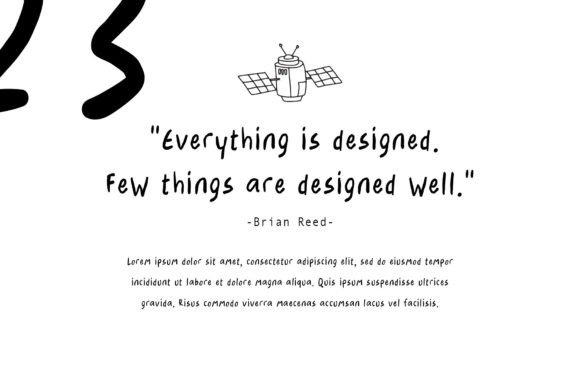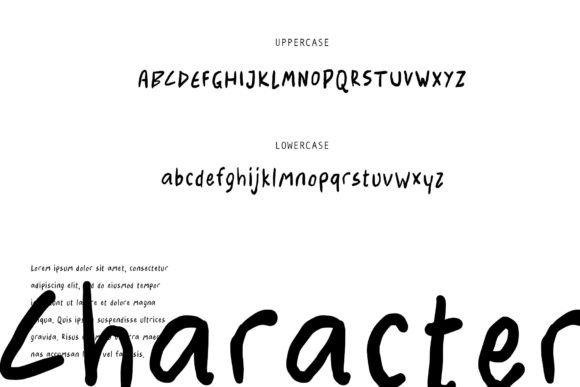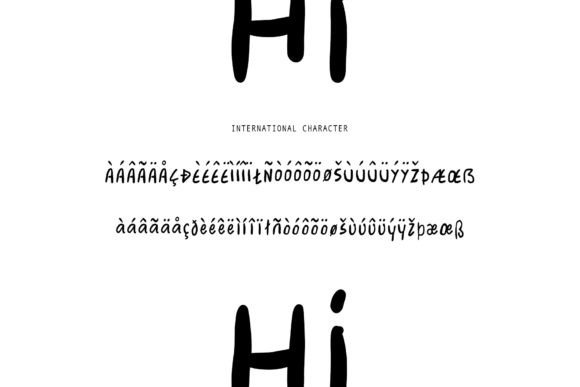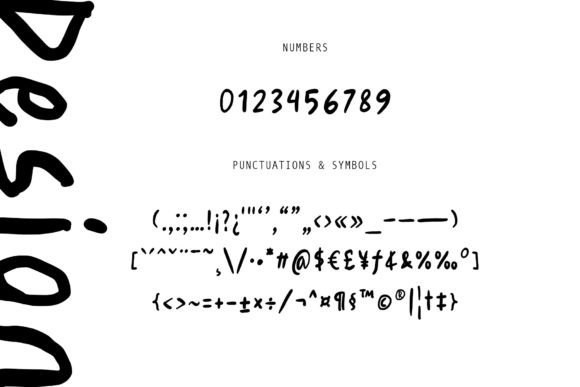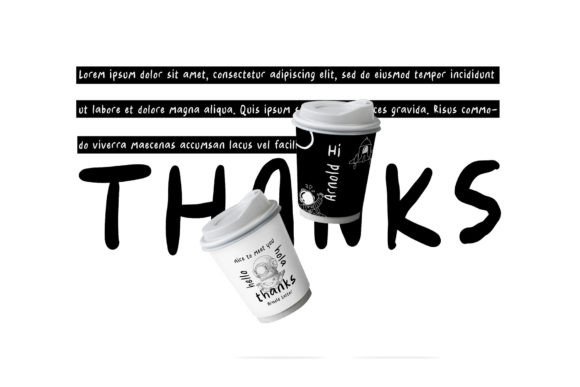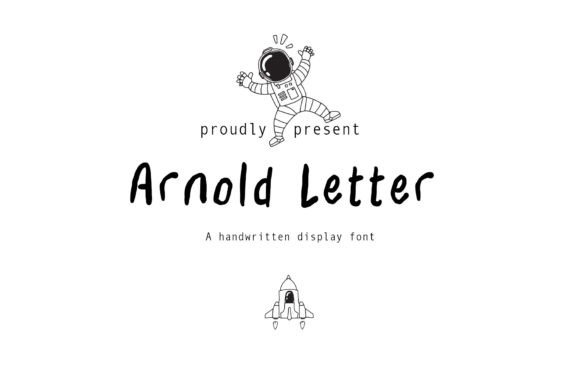
Discover the Charm of Arnold Letter Font: A Handwritten Delight
Are you tired of using the same old fonts in your design projects? Look no further than the Arnold Letter Font, a handwritten font that embodies unique character and enjoyment. Inspired by the way a child first learns to write, this font reflects innocence and excitement in every stroke. In this article, we’ll explore the history behind the creation of Arnold Letter, its features, and how it can elevate your design projects.
The Inspiration Behind Arnold Letter Font
The creator of Arnold Letter Font aimed to capture the essence and beauty of the simplicity of a child’s handwriting. When a child first learns to write, their strokes are often uneven, and their letters are filled with excitement and curiosity. This font seeks to preserve the uniqueness of that moment, bringing a sense of joy and freshness to any design project. By combining unique character and joyfulness in the design, Arnold Letter becomes an ideal choice to grab attention and deliver a pleasant message.
Features of Arnold Letter Font
Arnold Letter Font is a highly versatile font, suitable for various design purposes, such as:
• Film titles: Add a touch of whimsy and charm to your movie titles with Arnold Letter.
• Posters: Create eye-catching posters that stand out from the crowd with this unique font.
• Invitations: Make your invitations special and personalized with Arnold Letter’s handwritten style.
• Packaging: Add a personal touch to your product packaging and make it more appealing to customers.
• Clothing designs: Create trendy and fashionable clothing designs with Arnold Letter Font.
• Logos: Use Arnold Letter to create a unique and memorable logo for your brand.
• Branding: Incorporate Arnold Letter into your branding materials to add a touch of personality and whimsy.
What Makes Arnold Letter Font Special?
Arnold Letter Font is more than just a font – it’s an experience. Its original handwritten style adds a personal touch to every design project, bringing cheerfulness and joy to your audience. The font’s unique character and playfulness make it perfect for designers and crafters looking to create something special. Whether you’re designing for a client or working on a personal project, Arnold Letter Font is sure to impress.
How to Use Arnold Letter Font in Your Design Projects
In conclusion, Arnold Letter Font is a treasure trove of creativity and inspiration for designers and crafters. Its unique handwritten style, inspired by the simplicity of a child’s handwriting, brings joy and freshness to any design project. With its versatility and charm, Arnold Letter Font is sure to become an essential element in your design journey. So why wait? Discover the charm of Arnold Letter Font today and take your design projects to the next level!
As a designer or crafter, you’re constantly on the lookout for new and exciting ways to express yourself and bring your ideas to life. Arnold Letter Font is a breath of fresh air, offering a unique and playful way to add personality and whimsy to your designs. Whether you’re a seasoned pro or just starting out, Arnold Letter Font is a must-have in your design toolkit. So go ahead, get creative, and make Arnold Letter Font an integral part of your design journey!